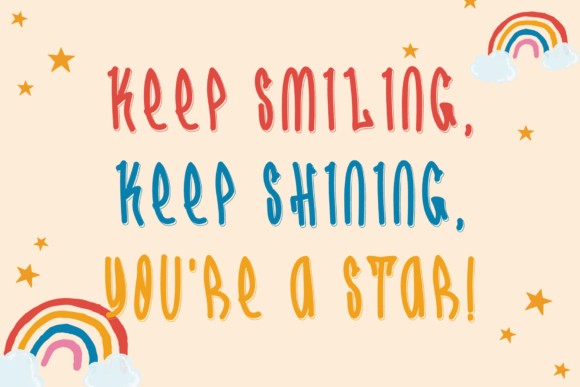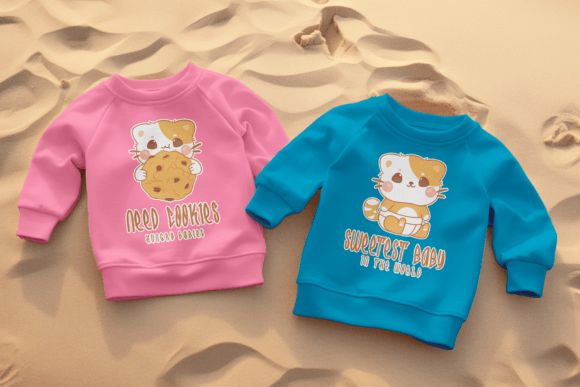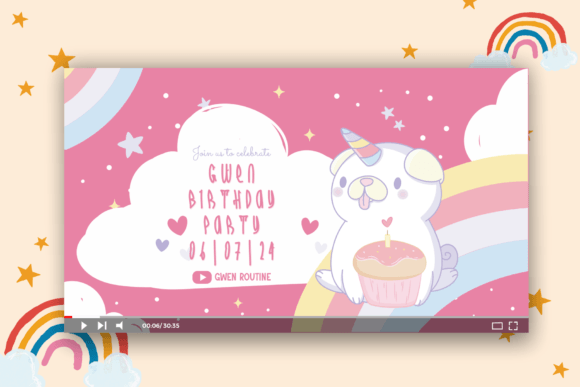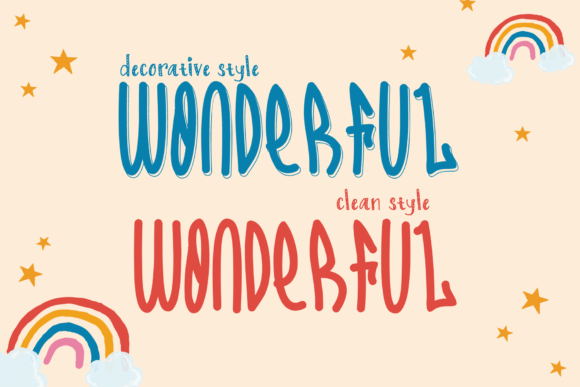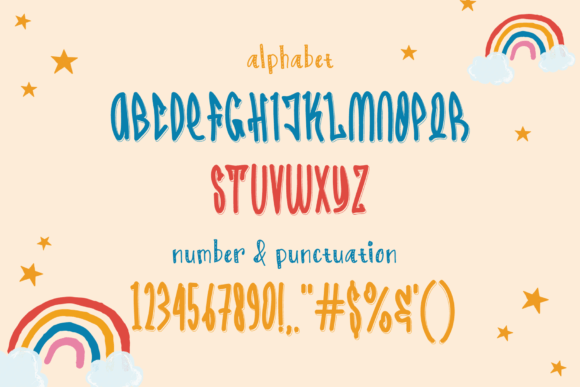
Introduction to Dazzling Monkey Font
Meet Dazzling Monkey, an enchanting font that dances between playful allure and beguiling whimsy.
This thin, elegant handwriting font paints with slender lines and artistically chic swirls, infusing your design project with a captivating fusion of sophistication and creativity From chic invitations to delightful greeting cards and modish headlines, Dazzling Monkey suits any needs with its unique, handwritten aesthetic.